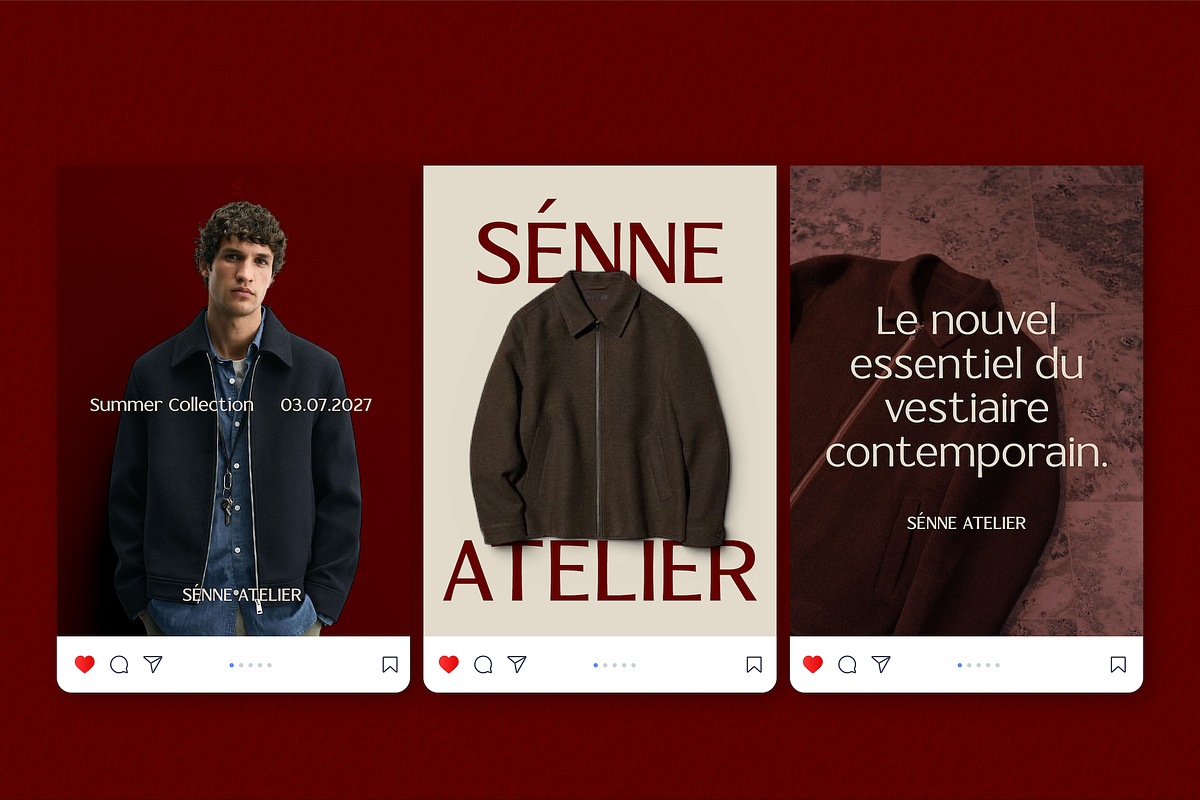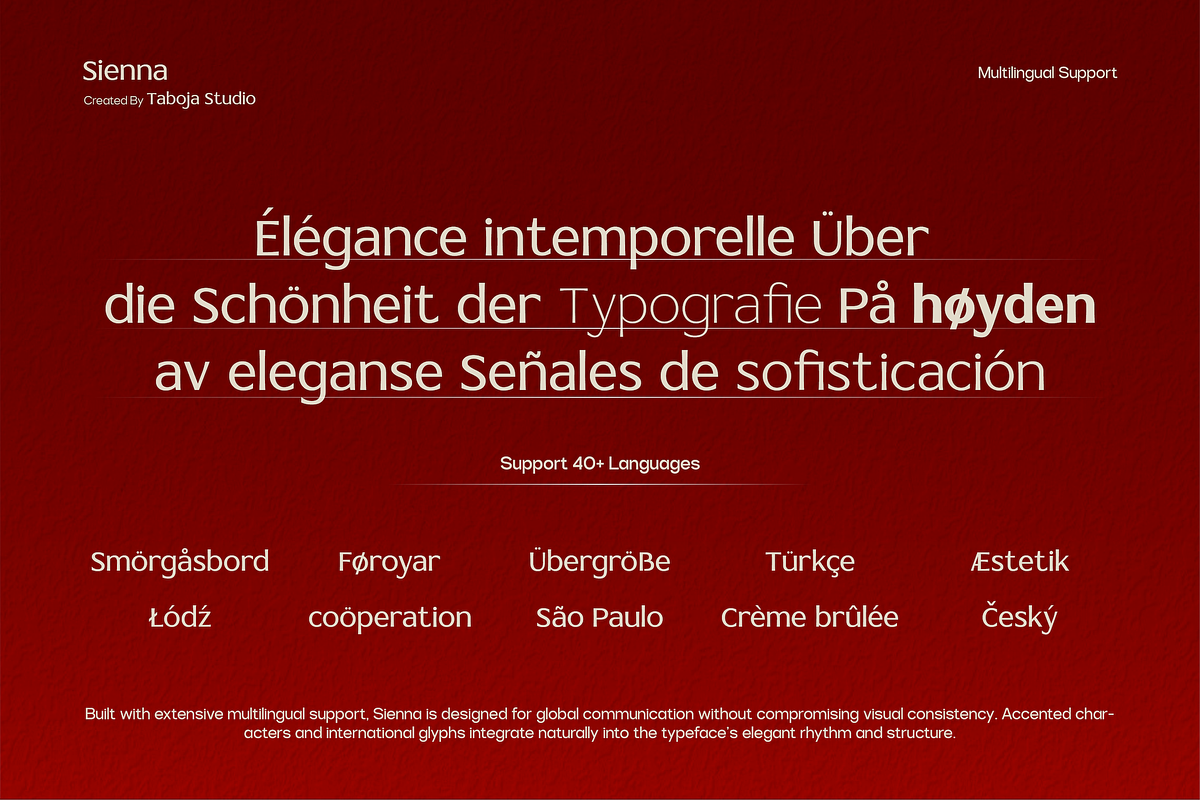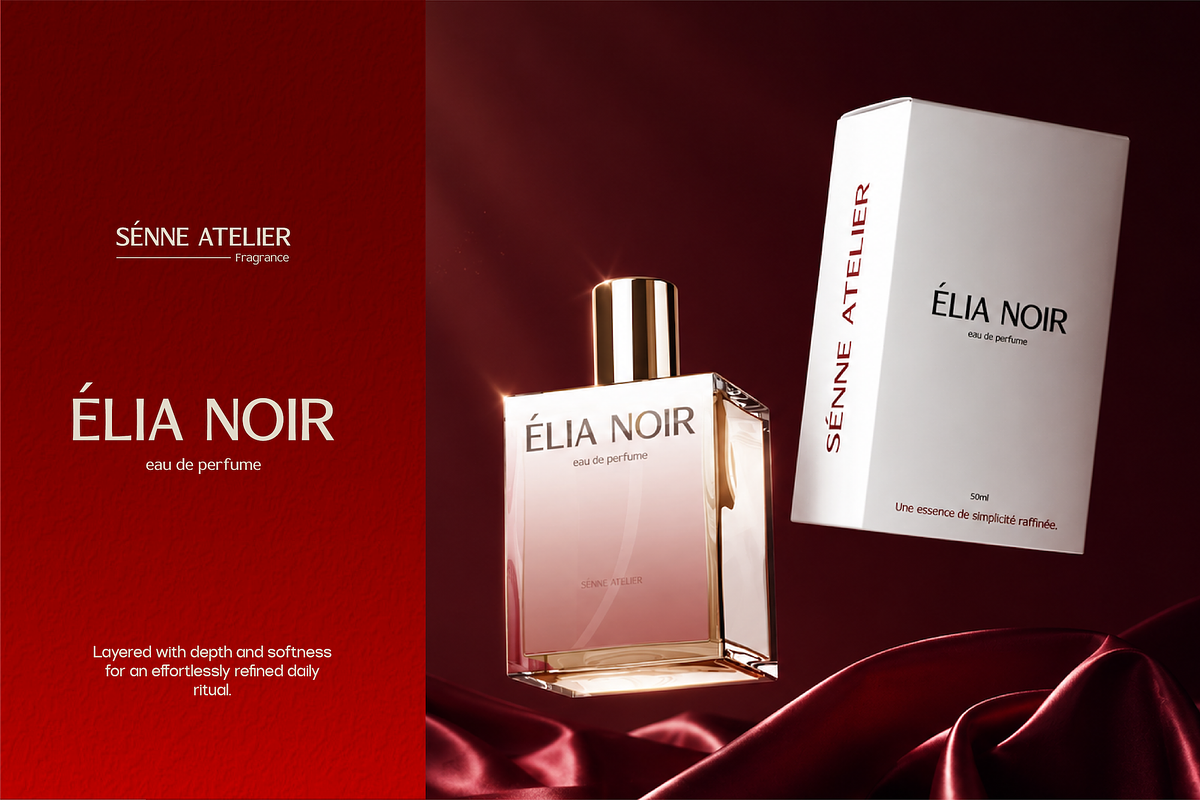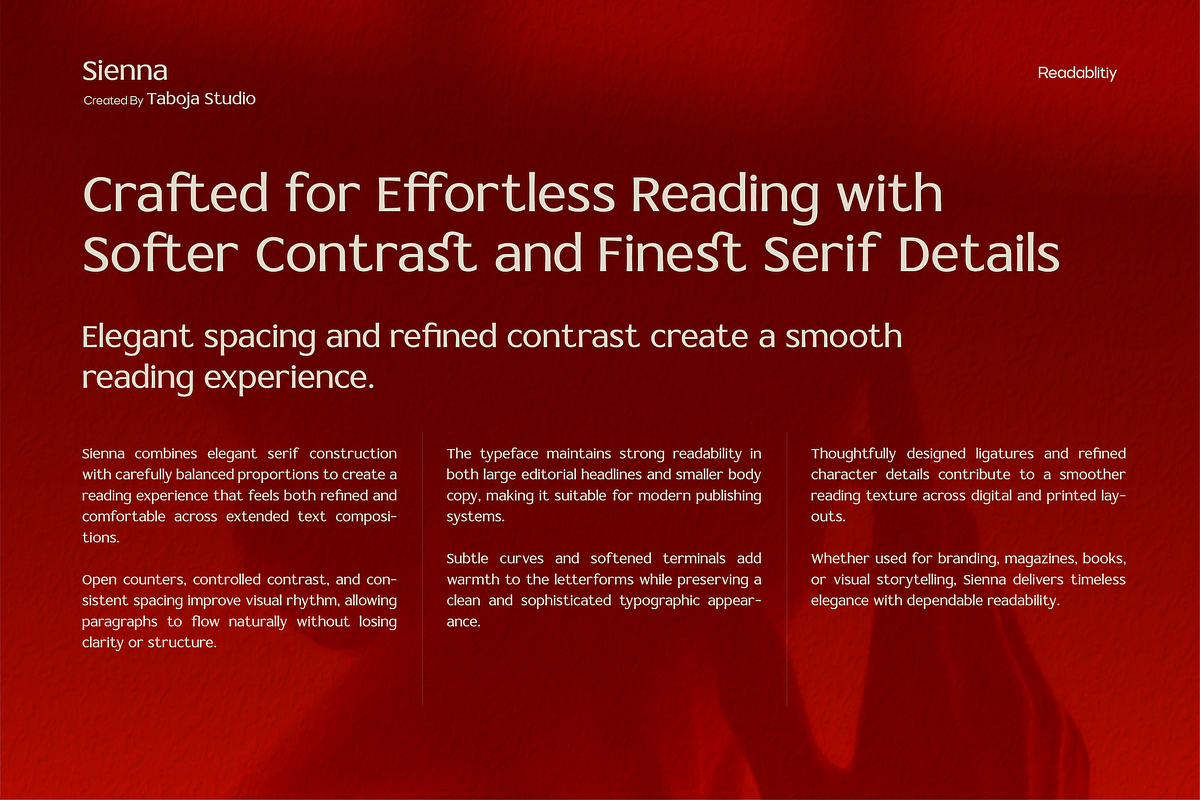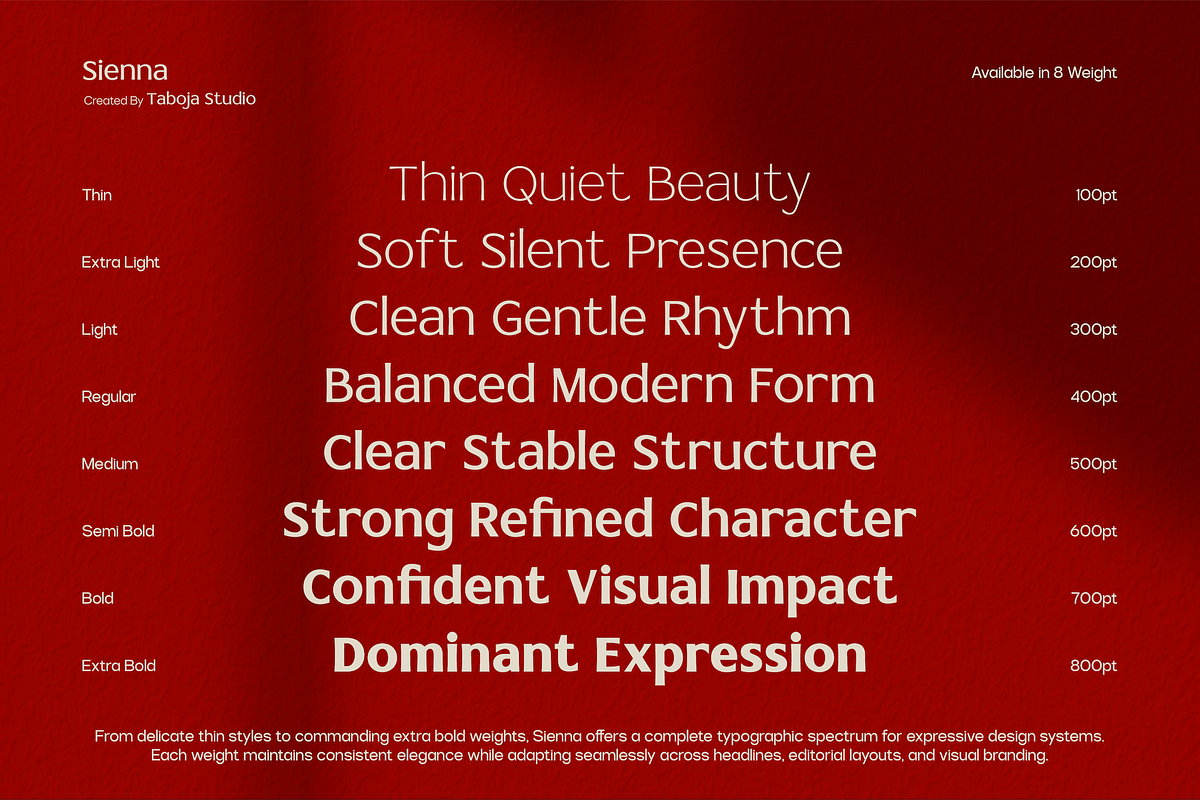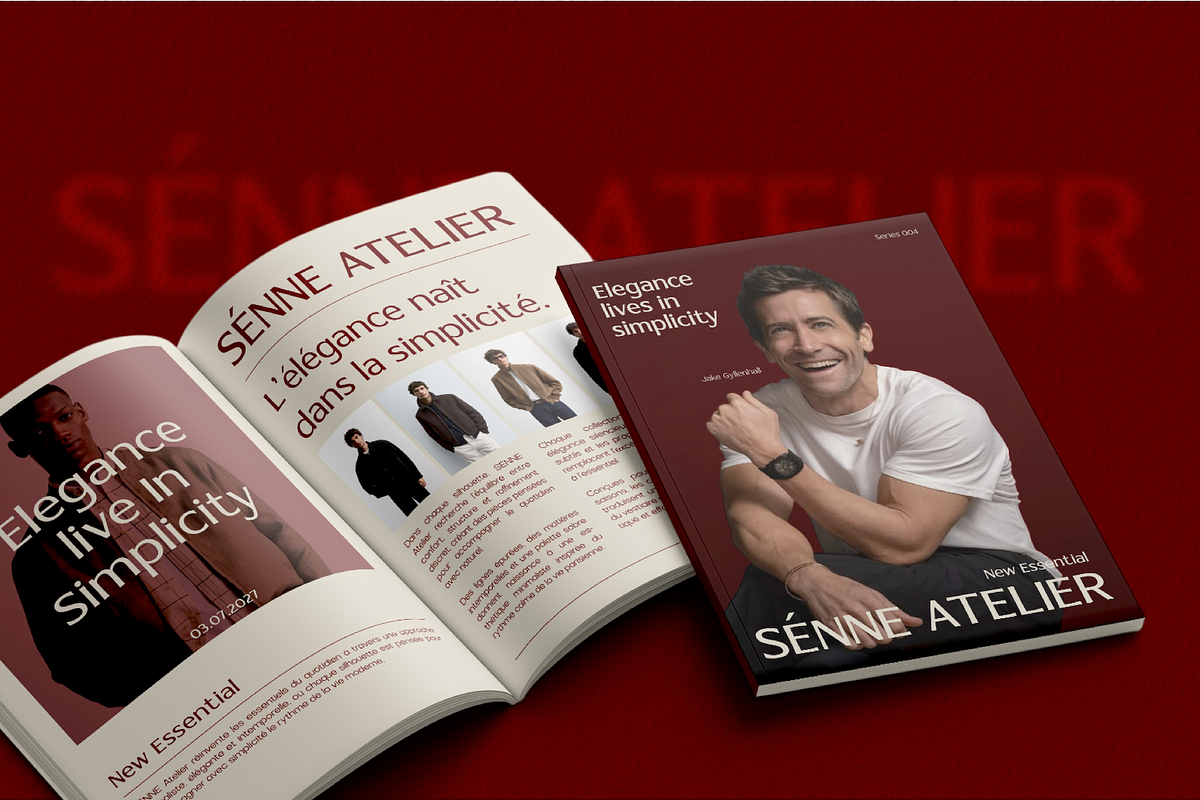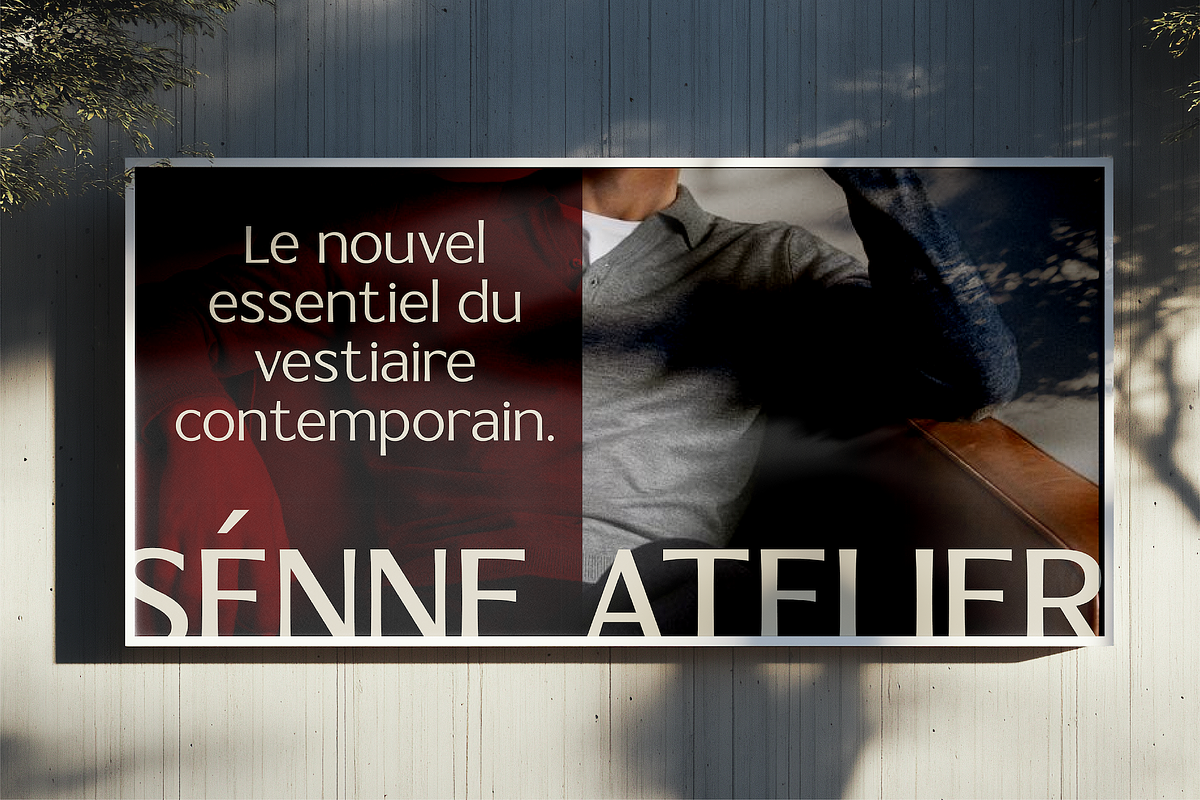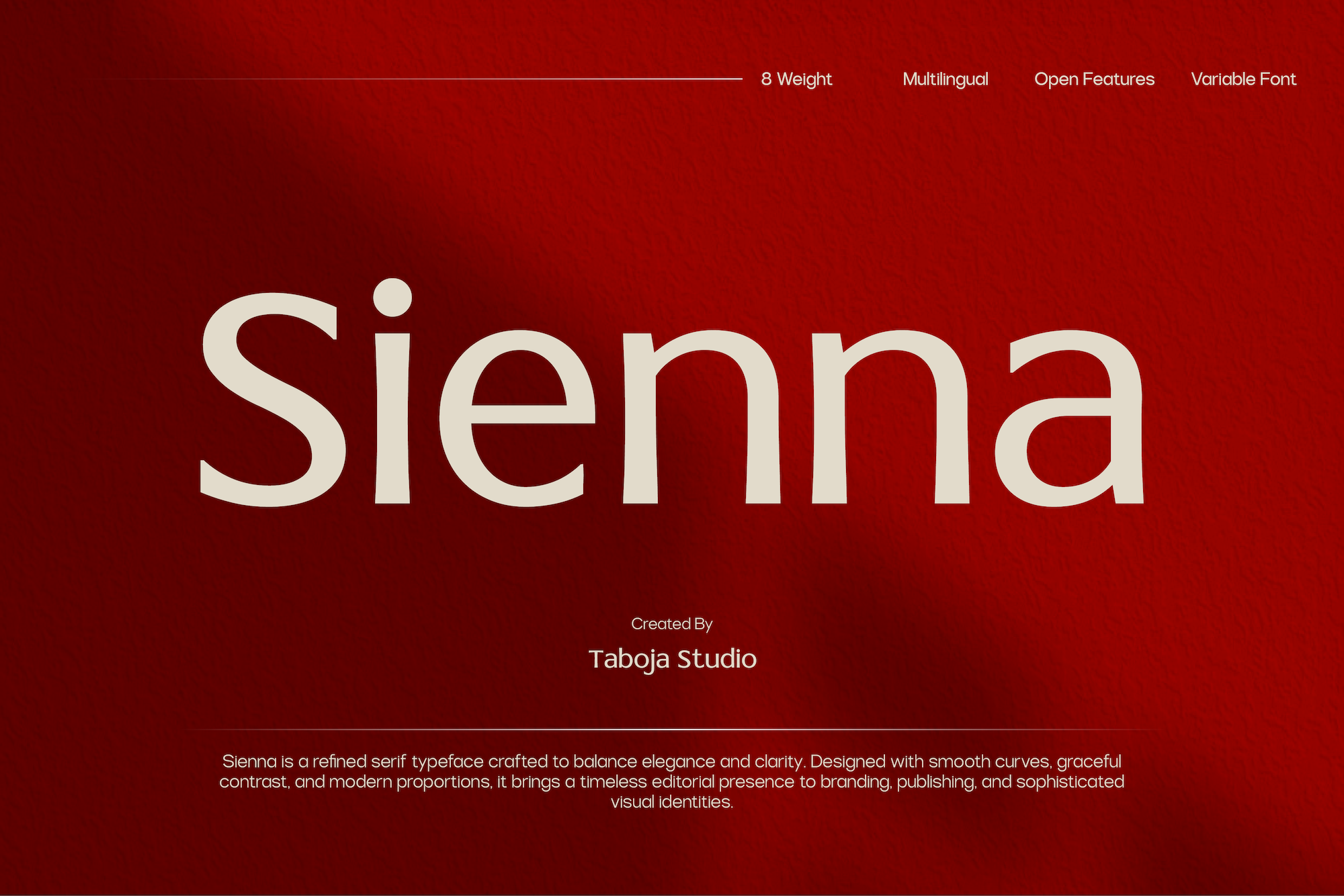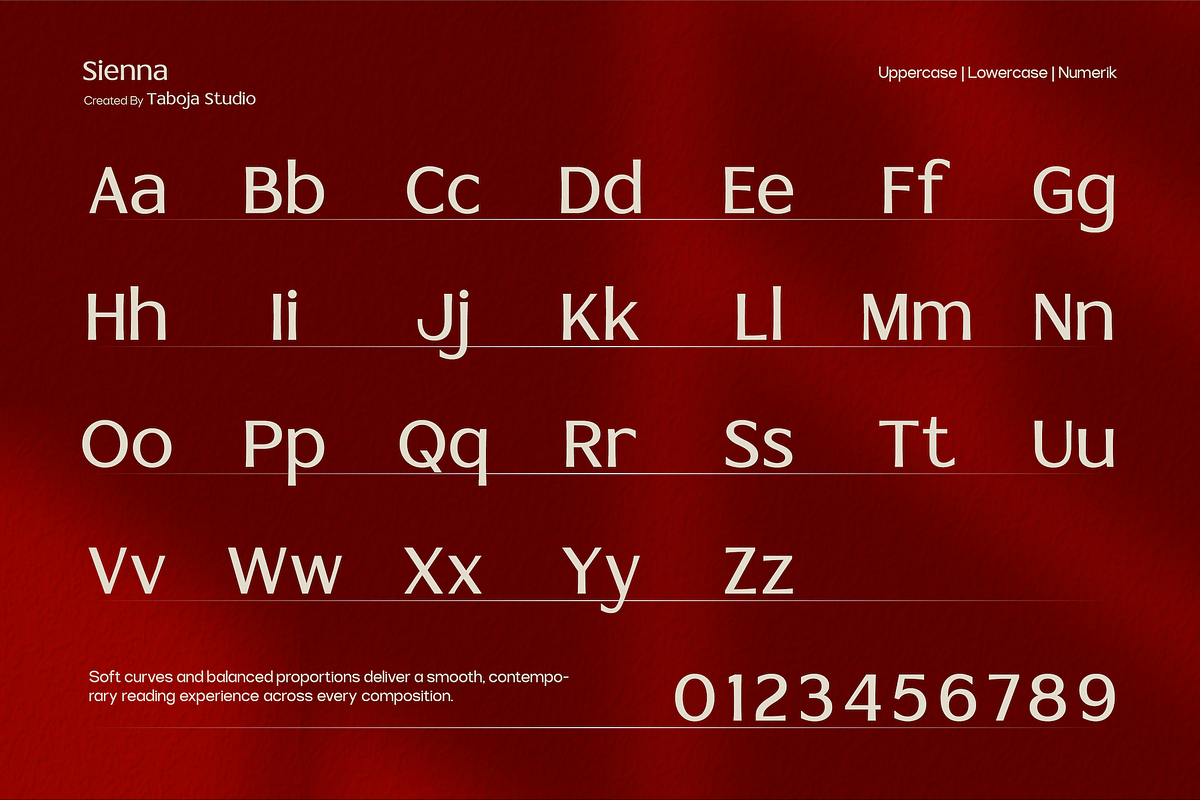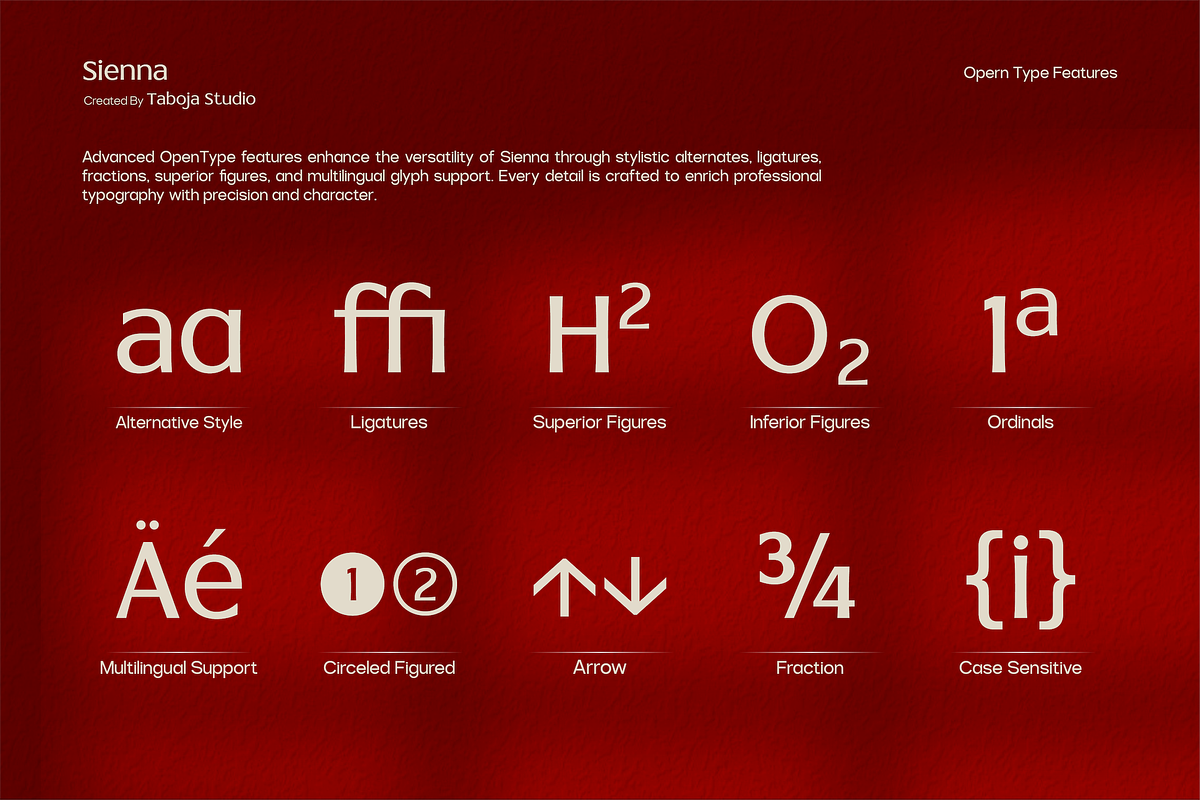
TBJ Sienna Elegant Serif Font Family
TBJ Sienna is a thin serif typeface built on the principle of restraint. Designed with smooth, delicate strokes and refined proportions, it carries the quiet elegance found in high-end editorial design, luxury branding, and refined visual identities.
Each letterform is drawn with intentional lightness, where the contrast between thick and thin is subtle, the curves flow without tension, and the overall texture feels silky on the page or screen. TBJ Sienna doesn't demand attention. It commands it.
Crafted for designers who understand that elegance is never loud, TBJ Sienna is the typeface for fashion labels, beauty brands, literary publications, wedding stationery, and any project where stillness is part of the message.
TBJ Sienna is ideal for Fashion & beauty branding, Editorial magazines and lookbooks, Wedding and luxury event design, Book covers and literary publications, High-end packaging and product design, Premium web typography and headers